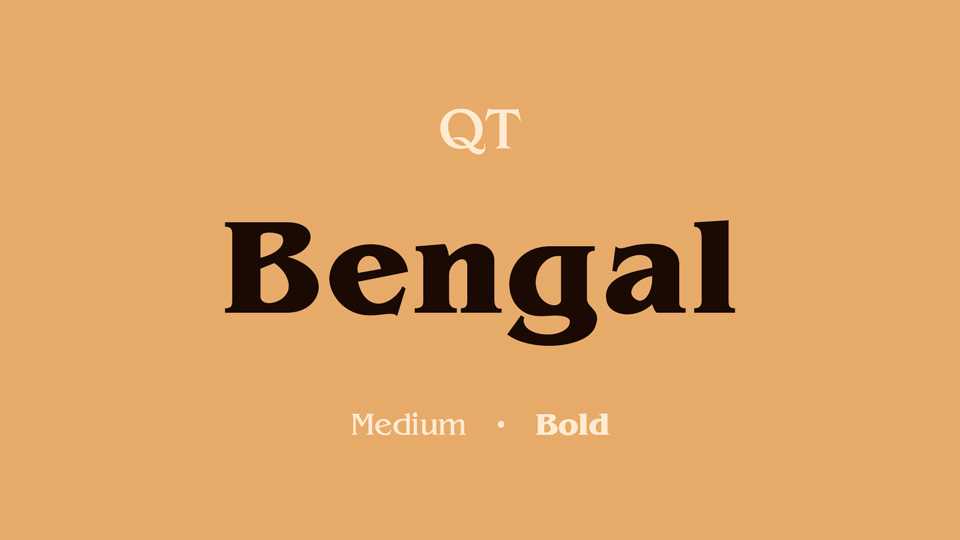
Download Bengal typeface, a decorative serif font family inspired by the typeface designed by Ed Benguiat. The Bengal is loosely based upon typefaces of the Art Nouveau period but is not considered an academic revival.